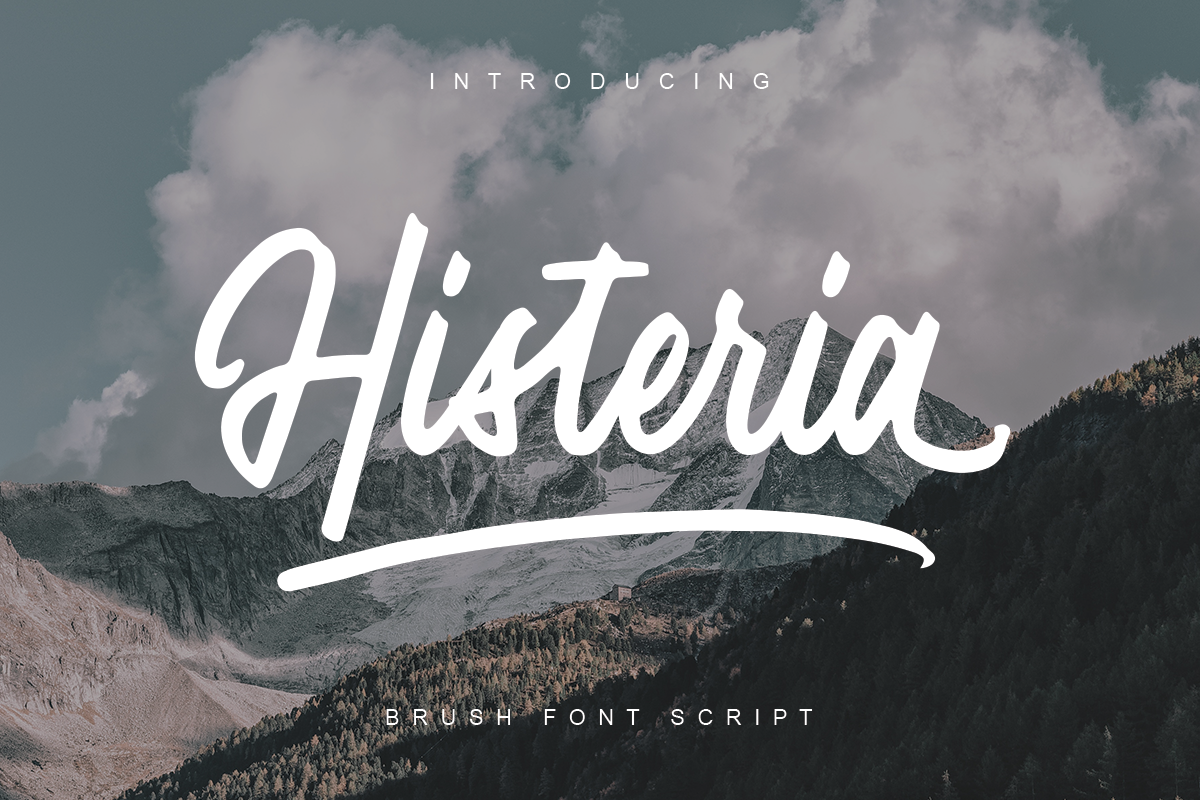
Histeria Script
Histeria
Histeria Slant
Histeria Script Font is a type of script brush that is made using a pen brush. there are 2 types of fonts that have a standard model and type slant, so you can use it as a type of logo, badge, packaging, title, poster, t-shirt / shirt, and others. Flowing characters are ideal for making interesting messages, to fit your project.Hysteria Script also has 3 types of open types that you can use to decorate the letters you will use. there are a number of ligature that support this font to make it more interesting, and swash which is to strengthen the letters when making a logo.Files included: